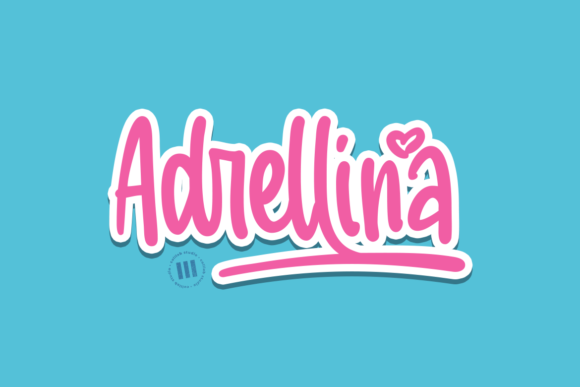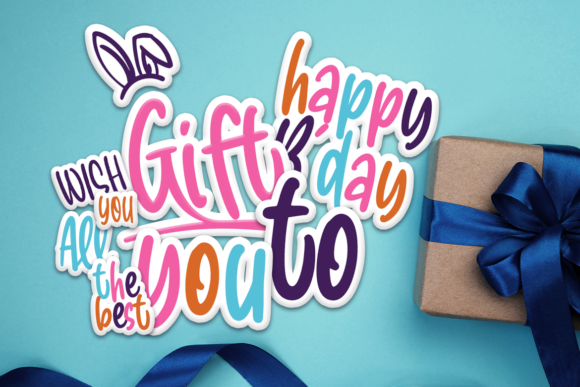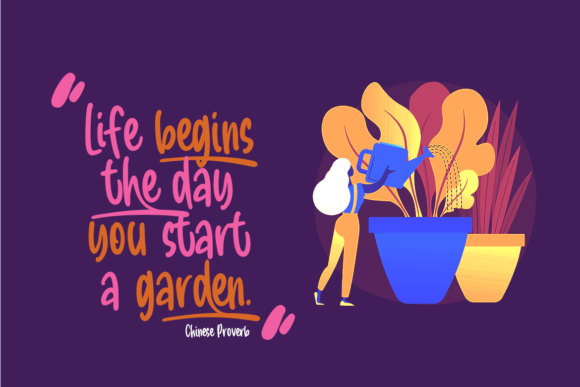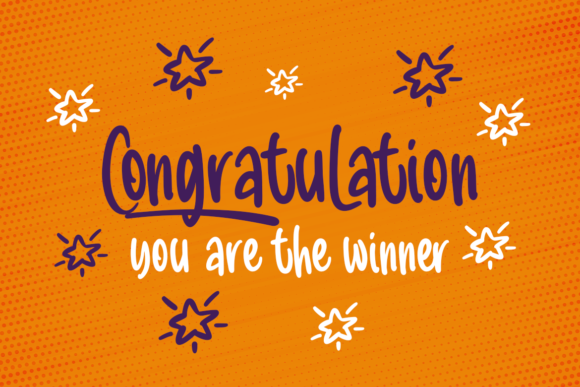
Adrellina Font: A Sweet Handwritten Script for Cricut & DIY Projects
About the Adrellina Font
Add a touch of class to your work with the Adrellina Font, a truly exceptional typeface. Adrellina is a sweet and cursive handwritten font. This gentle font will look gorgeous on a variety of design ideas. It will add a joyful and romantic touch to each of your projects!
Adrellina’s flowing script is ideal for projects requiring a touch of elegance and playfulness. It works exceptionally well in wedding invitations, greeting cards, logos for boutiques or cafes, and short, impactful headlines. However, its delicate nature makes it unsuitable for body text or UI elements where high readability is crucial. Avoid using it for large blocks of text.
Pair Adrellina with a clean sans-serif like Lato for a modern contrast, or a classic serif like Garamond for a more traditional feel. For a bolder look, consider pairing it with a geometric sans-serif such as Montserrat. These pairings provide excellent readability while allowing Adrellina’s charm to shine.
Its core personality is undeniably romantic and friendly, conveying a sense of warmth and approachability. This makes it particularly well-suited to brands focused on femininity, handmade goods, or businesses that emphasize personal connection with their customers.
Adrellina Font Usage Examples
Adrellina Font Example